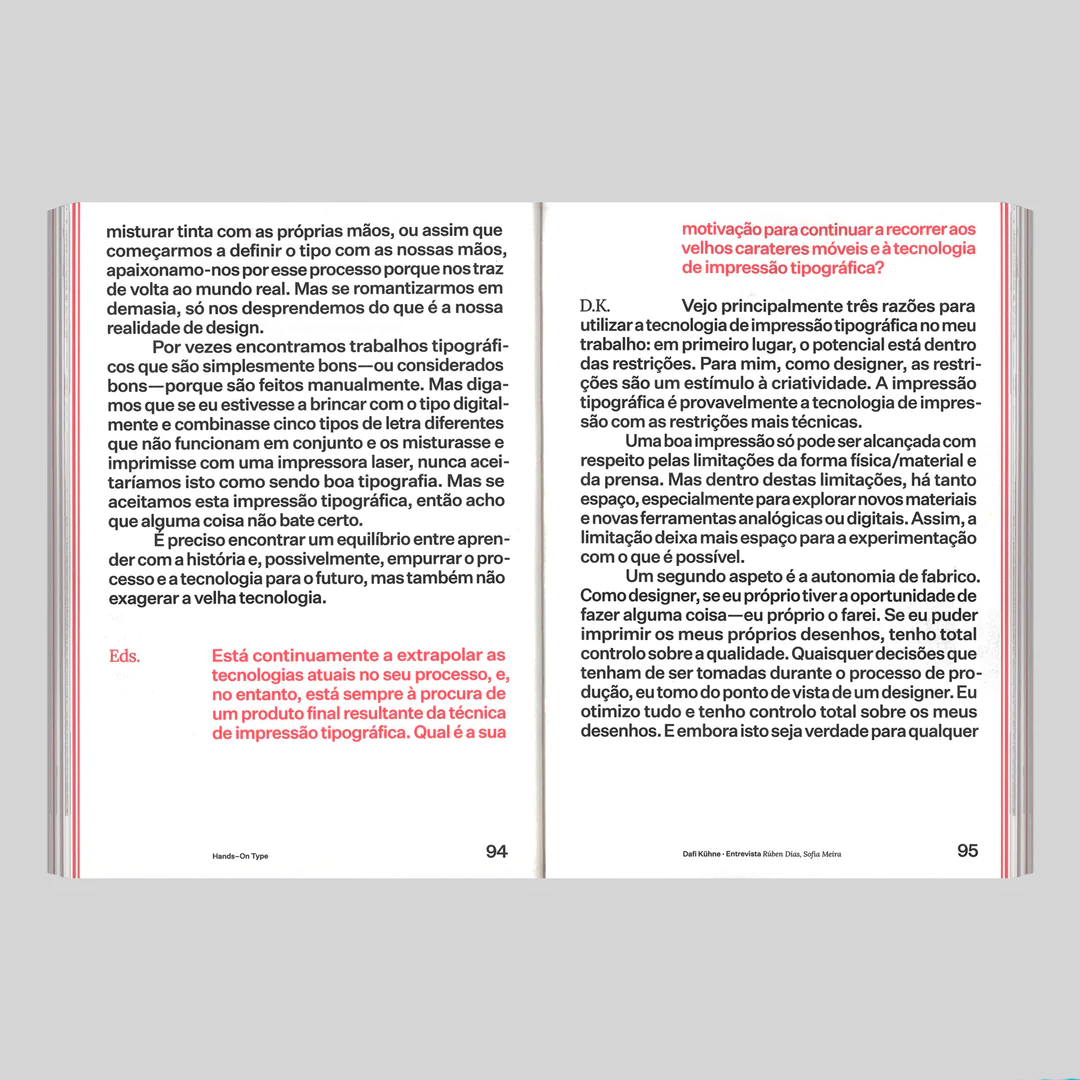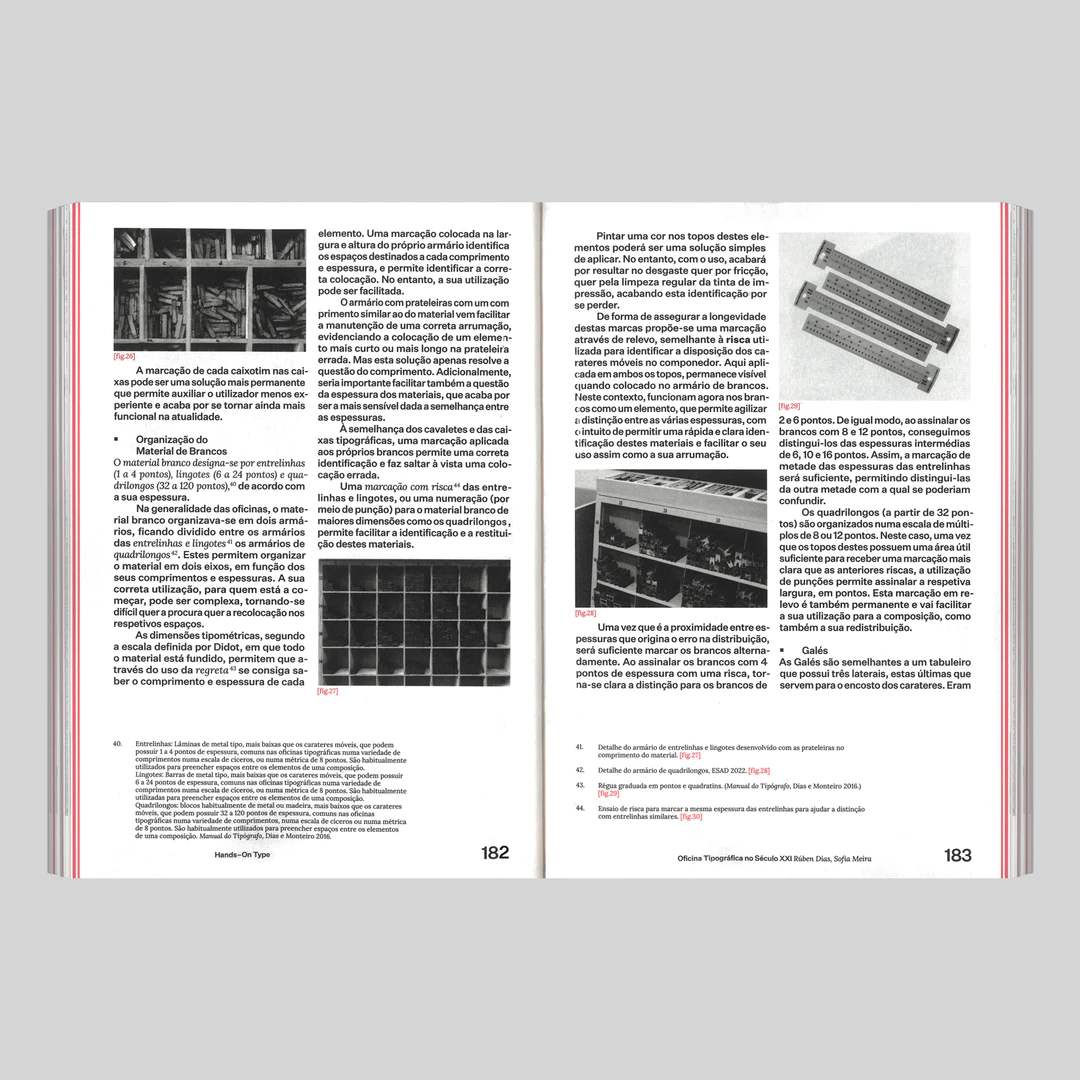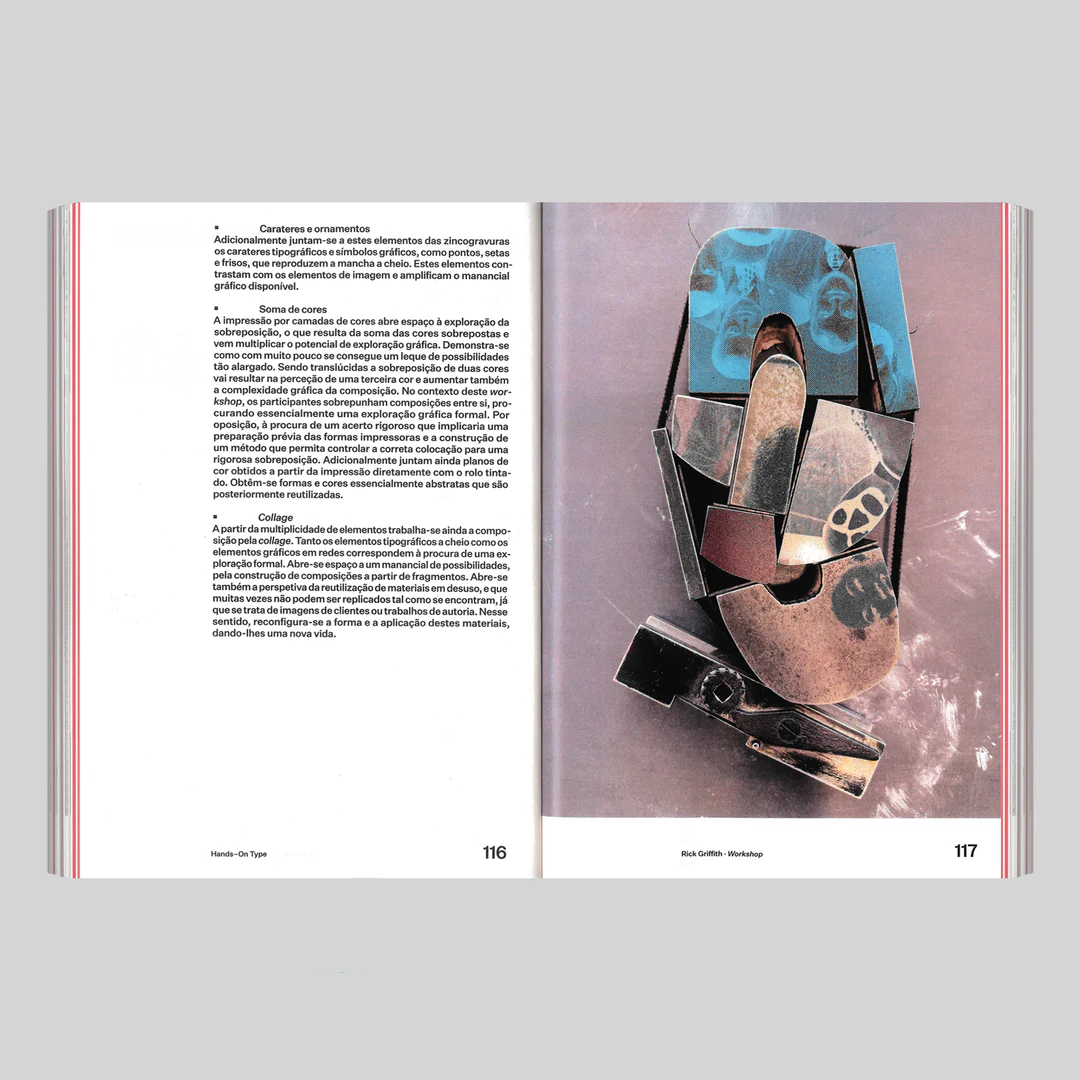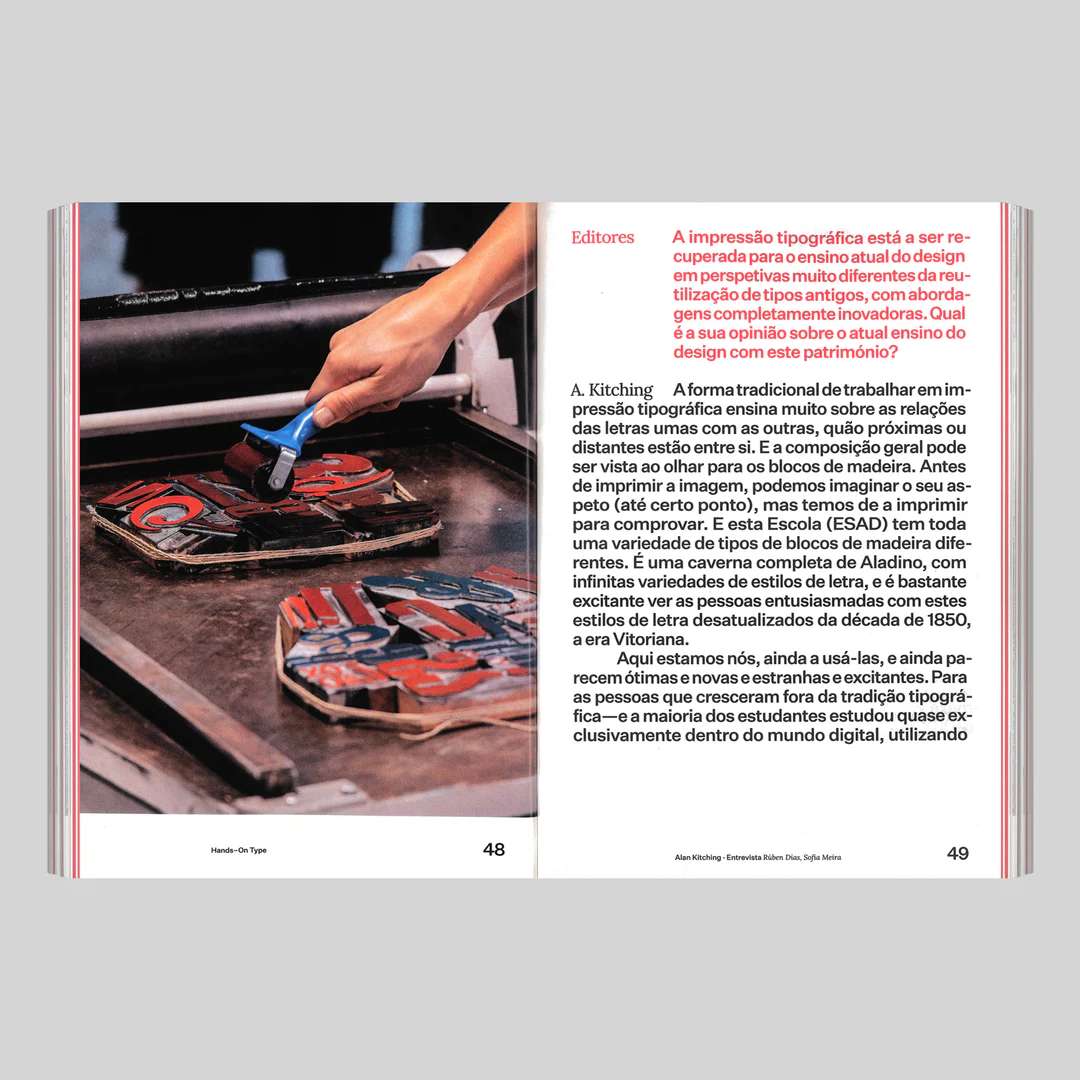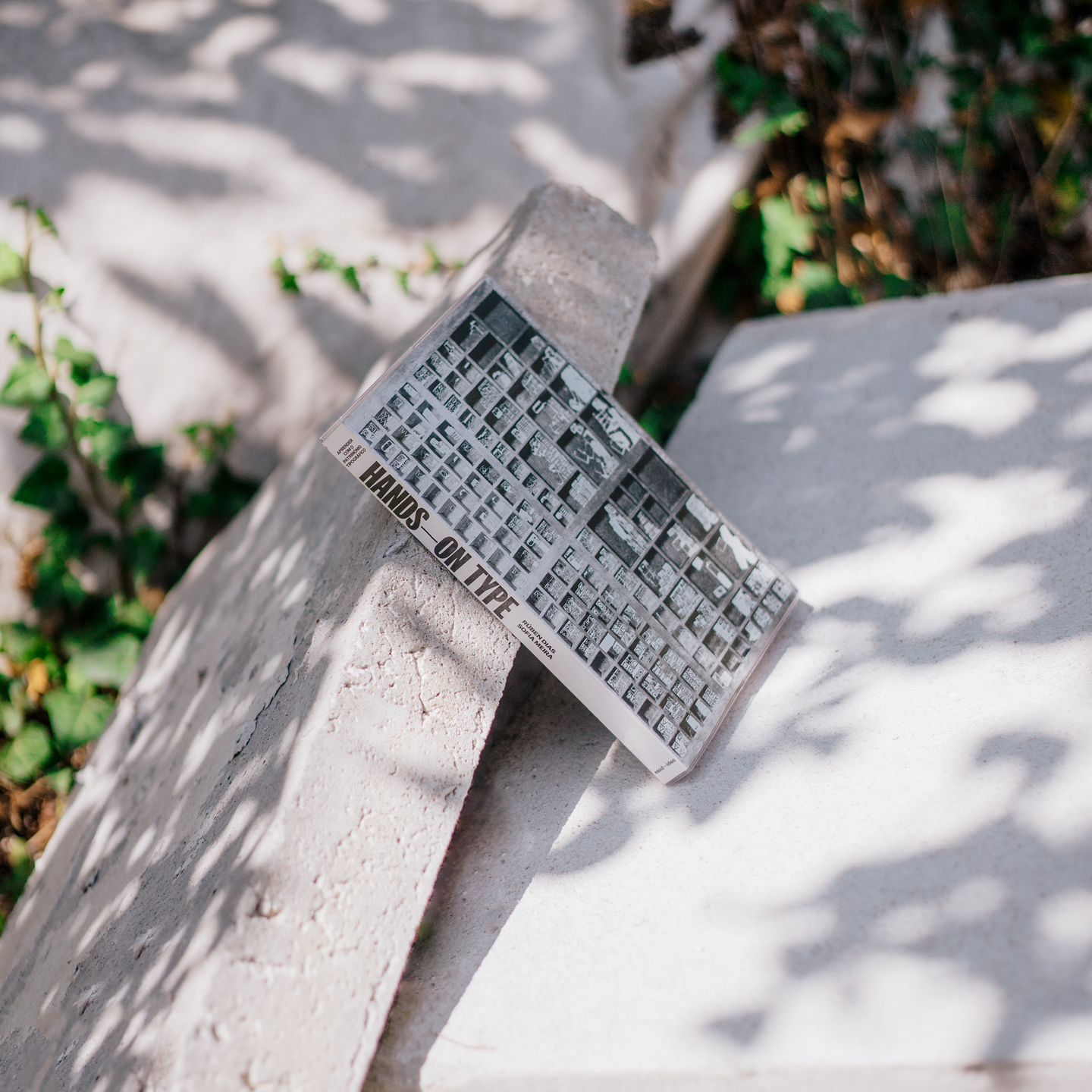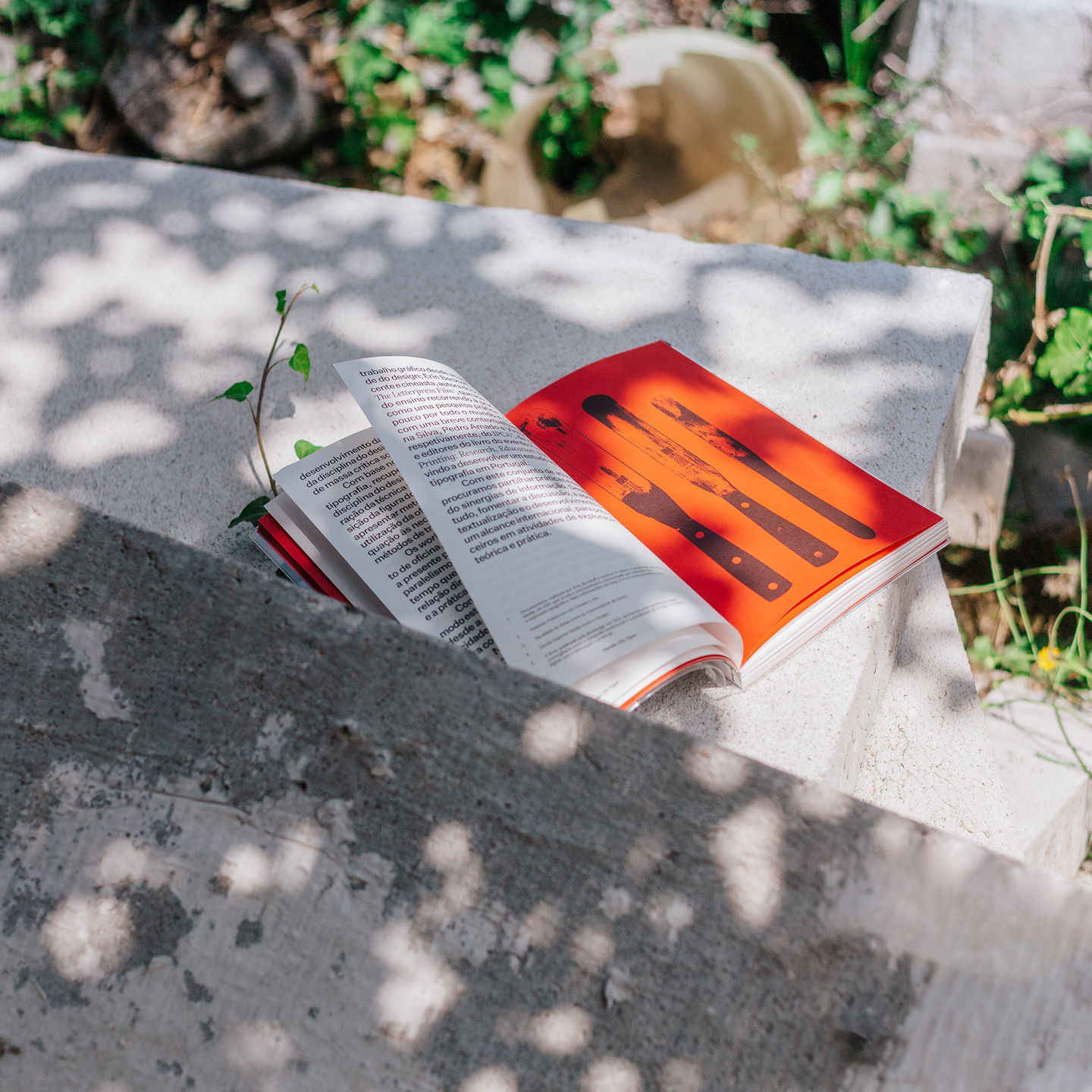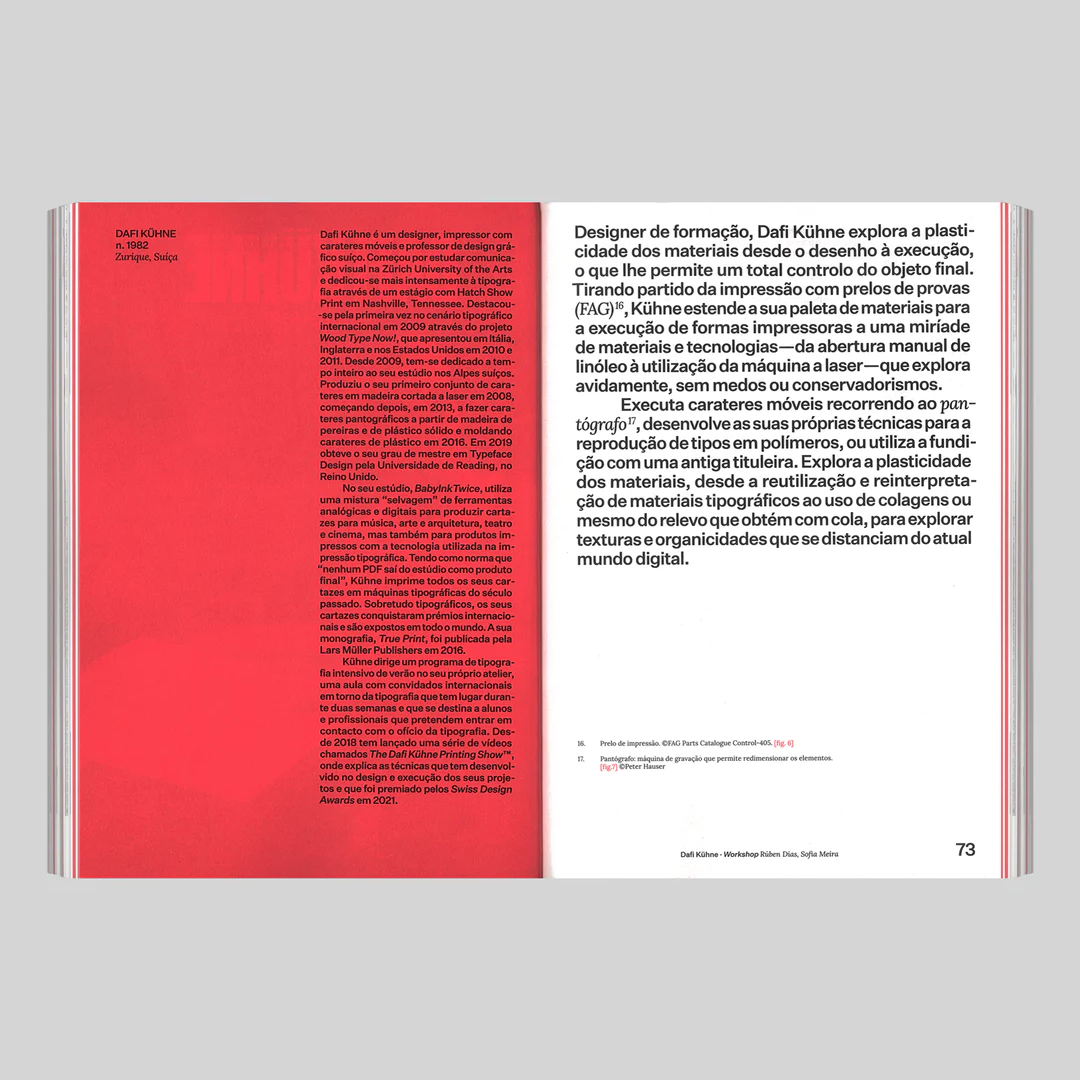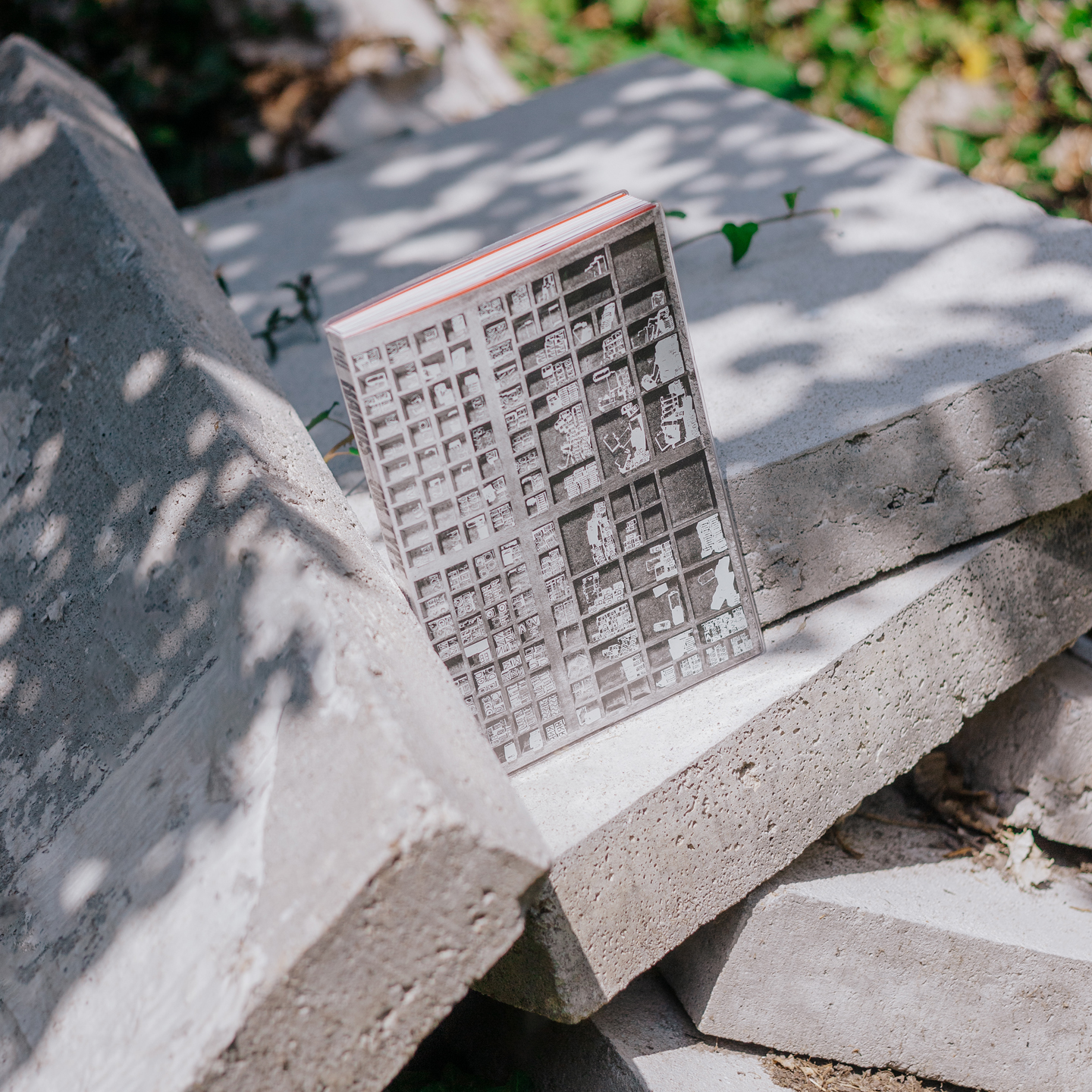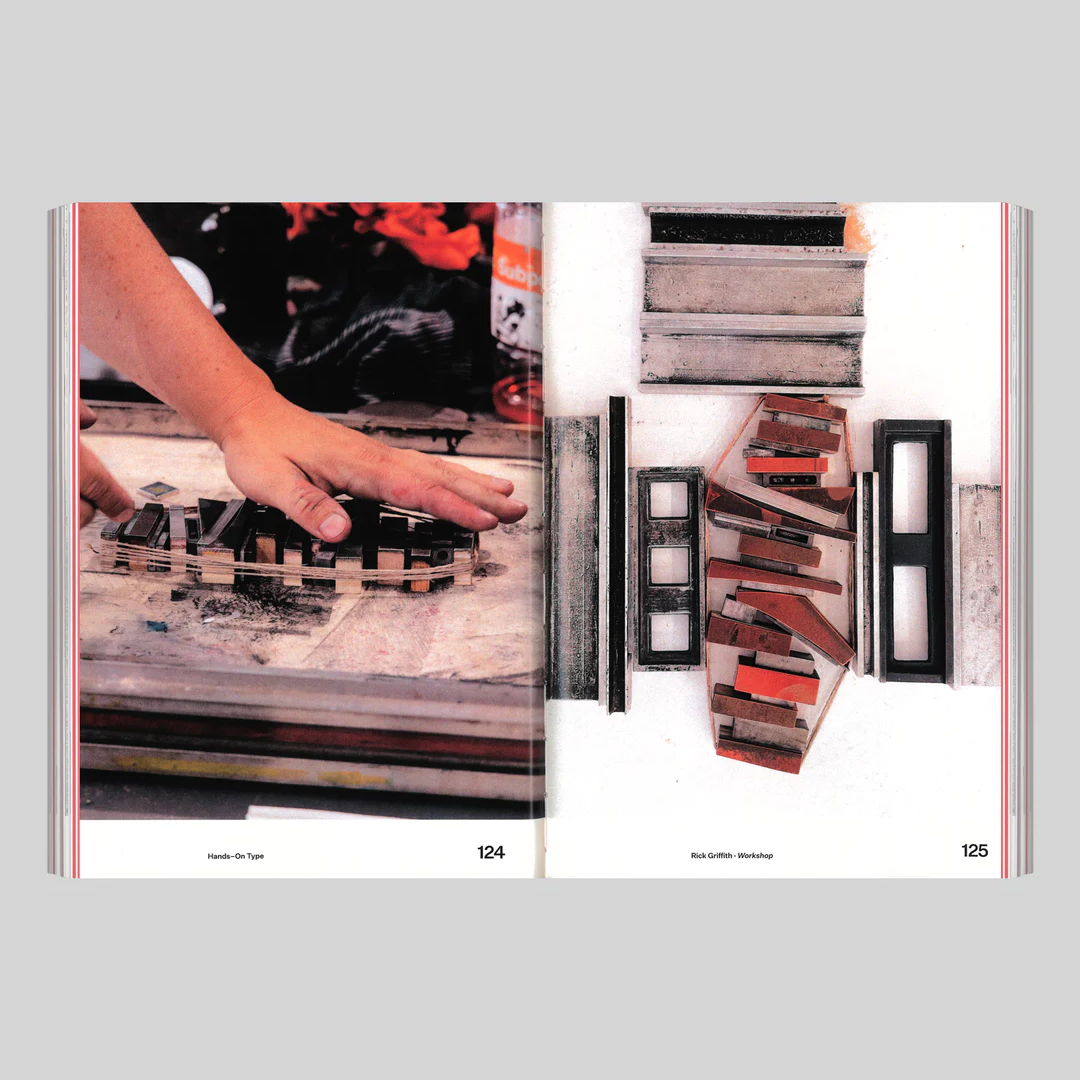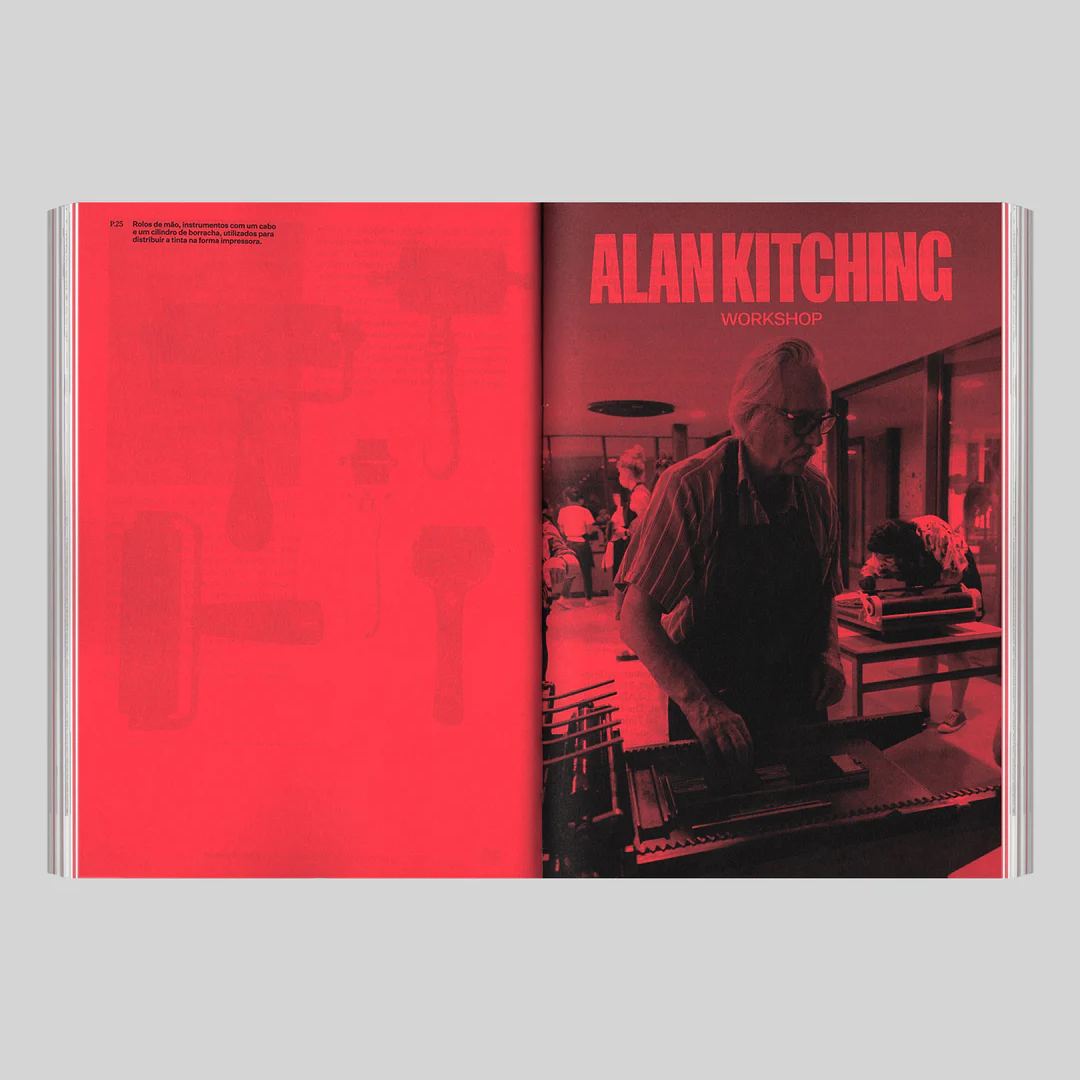
The historical influence of letterpress and movable type in the discipline of Graphic and Communication Design is indisputable and even today, in the midst of the digital age, the ability to master hundreds of years-old typographic techniques allows us to broaden horizons and create innovative solutions to contemporary issues.
Hands–On Type proposes a “return to the past” to recover and re-contextualize typographic printing without, however, abandoning the perspective of renewal of Design and its practices.
RÚBEN DIAS
With a PhD in Design, on type design in the eighteenth century, Rúben Dias maintains regular investigation about bookmaking, type and typography. Co-author of the books The Book Block, The BookCover, Manual Prático do Tipógrafo andImprimere. Rúben currently teaches at ESADMatosinhos having lectured at ESAD.CR, ESTAL, AR.CO, and ETIC. He works as a book designer and type designer and since 1999 keeps expanding Tipografia Dias, hisletterpress workshop. In 2003 Rúben Dias founded the studio 0.itemzero. Co-founder of Tipos das Letras, with whom he developed the RUHA project, a typeface family and a stencil as a tool to teach letteringand type design.
SOFIA MEIRA
A graduate in Graphic Design, Sofia Meira is responsible for the management of the typography workshop at ESAD Matosinhos.In addition to working at esad—idea, Research in Design and Art, Sofia is also a researcher in the area of Typography and Graphic Design and Director of Production of Porto Design Biennale. She develops research in the area of leterpress, movable type and printing processes, within the scope of her PhD in Design at the University of Fine Artsof Porto. She is co-author and curator of Imprimere book and exhibition with the same name.
HANDS–ON TYPE
Learning From Letterpress Heritage
Rúben Dias and Sofia Meira